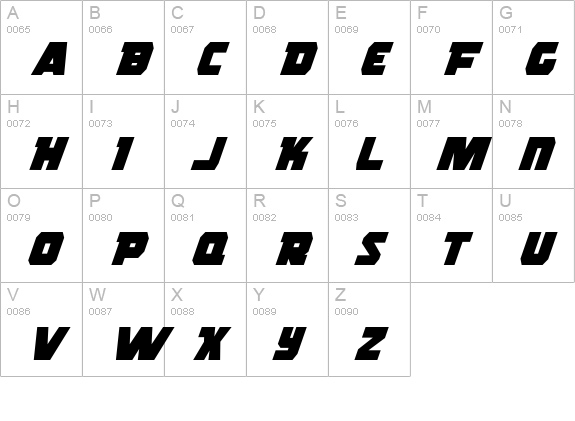
Rogue Hero Italic is a distinctive, italic variant in the Rogue typeface family \xE2\x80\x94 well suited to design and typography projects.
Rogue Hero Italic font is a bold and adventurous typeface that exudes a sense of mystery and intrigue. With its slanted design and sharp angles, this font is perfect for adding a touch of rebellion to your projects. The italicized characters give off a sense of movement and dynamism, making it ideal for titles, headers, and other eye-catching text. What sets Rogue Hero Italic font apart is not only its unique design but also the fact that it is available for free download at FontsMarket.com. This means that you can easily access this stylish and impactful font without any cost, making it a valuable addition to your font collection. Whether you're working on a poster, logo, or website design, Rogue Hero Italic font will bring a touch of edginess and sophistication to your creative projects. Download it for free today and unleash your inner rogue hero!